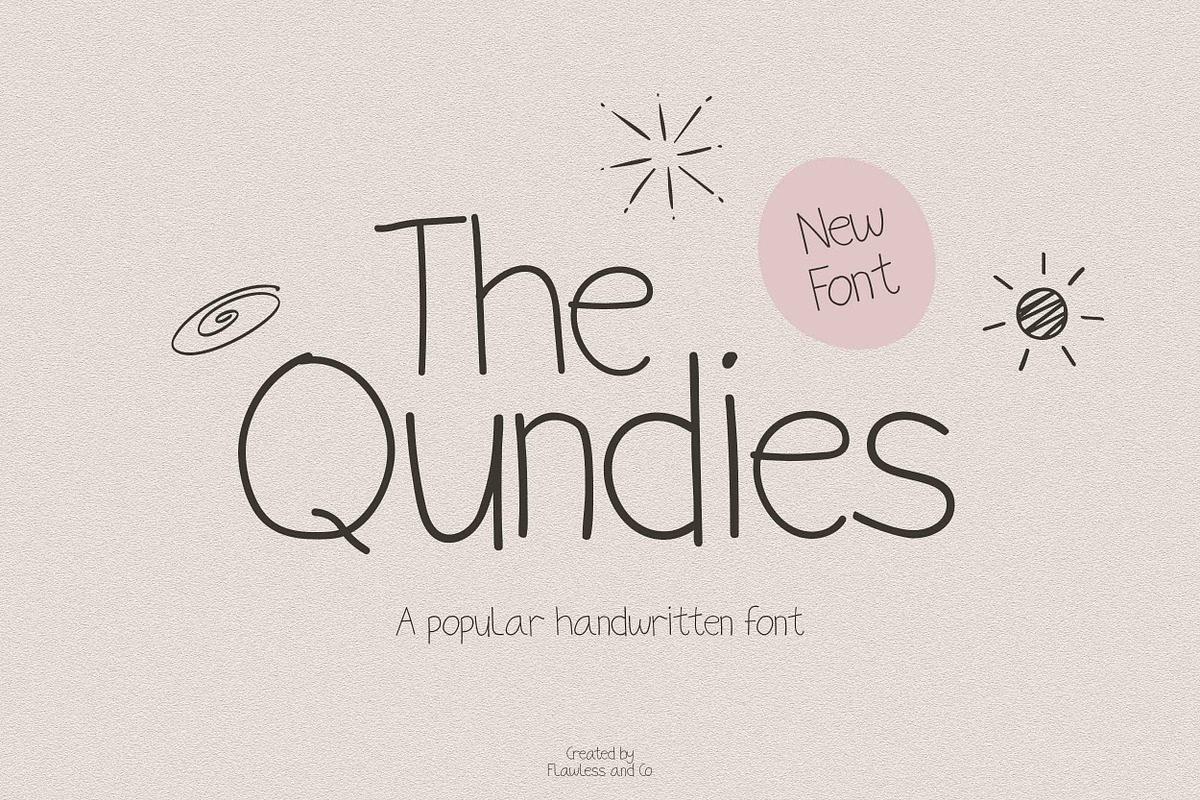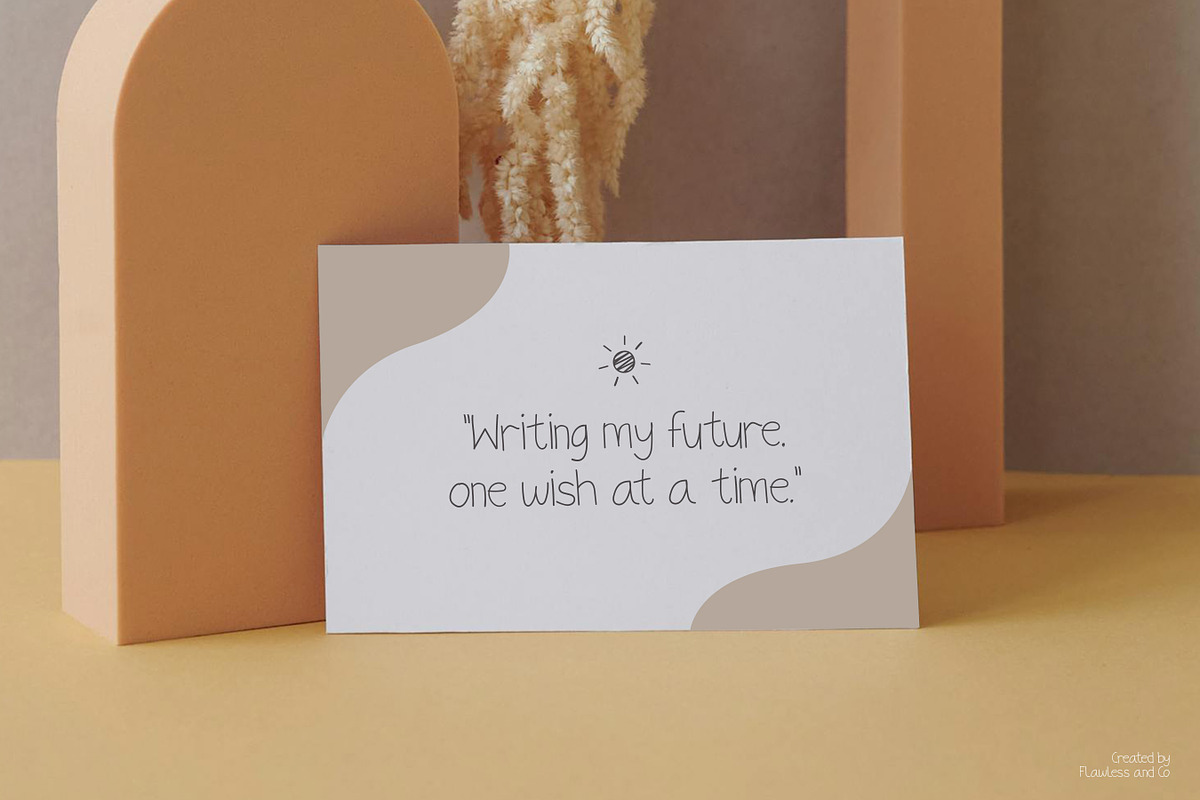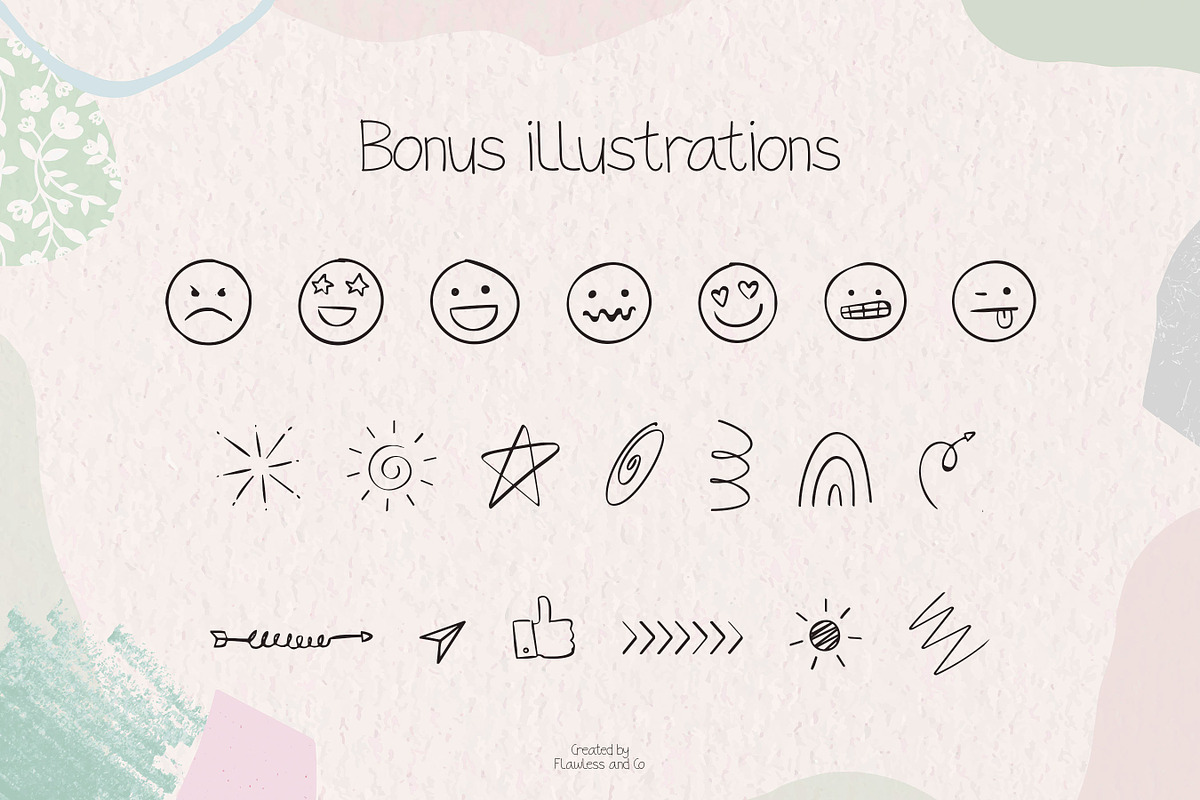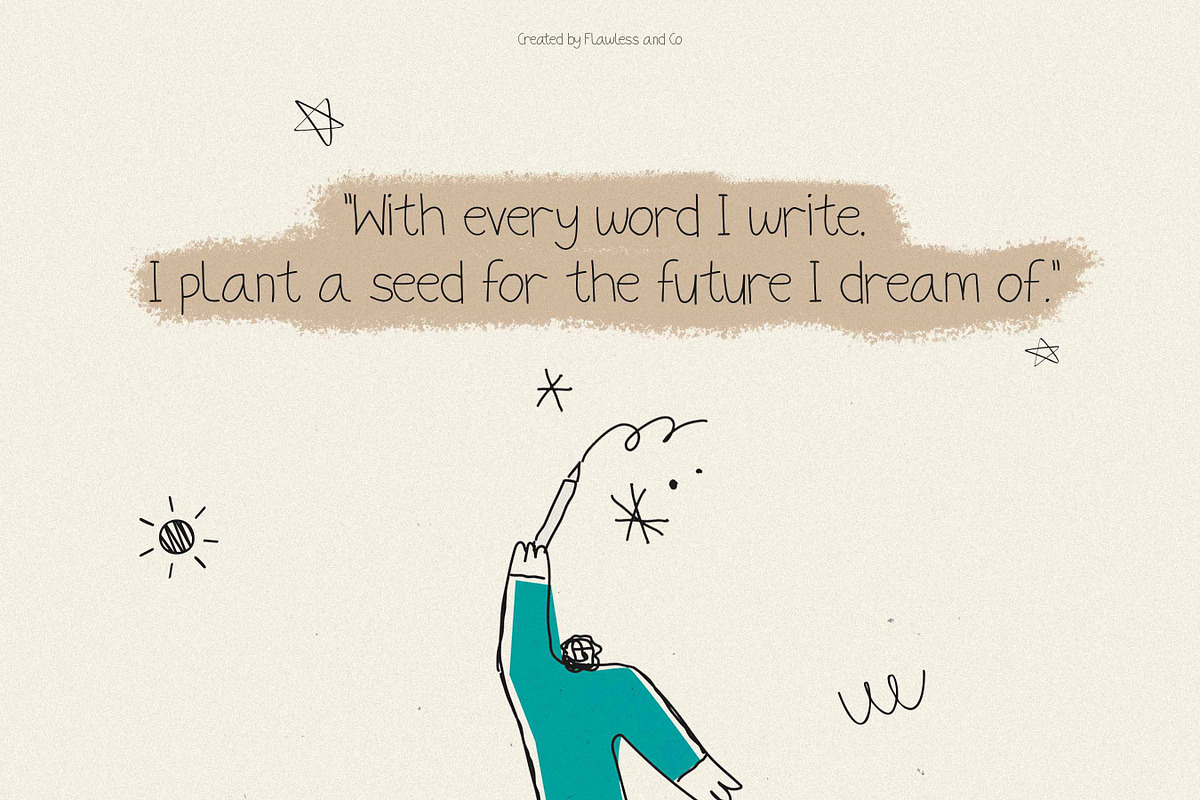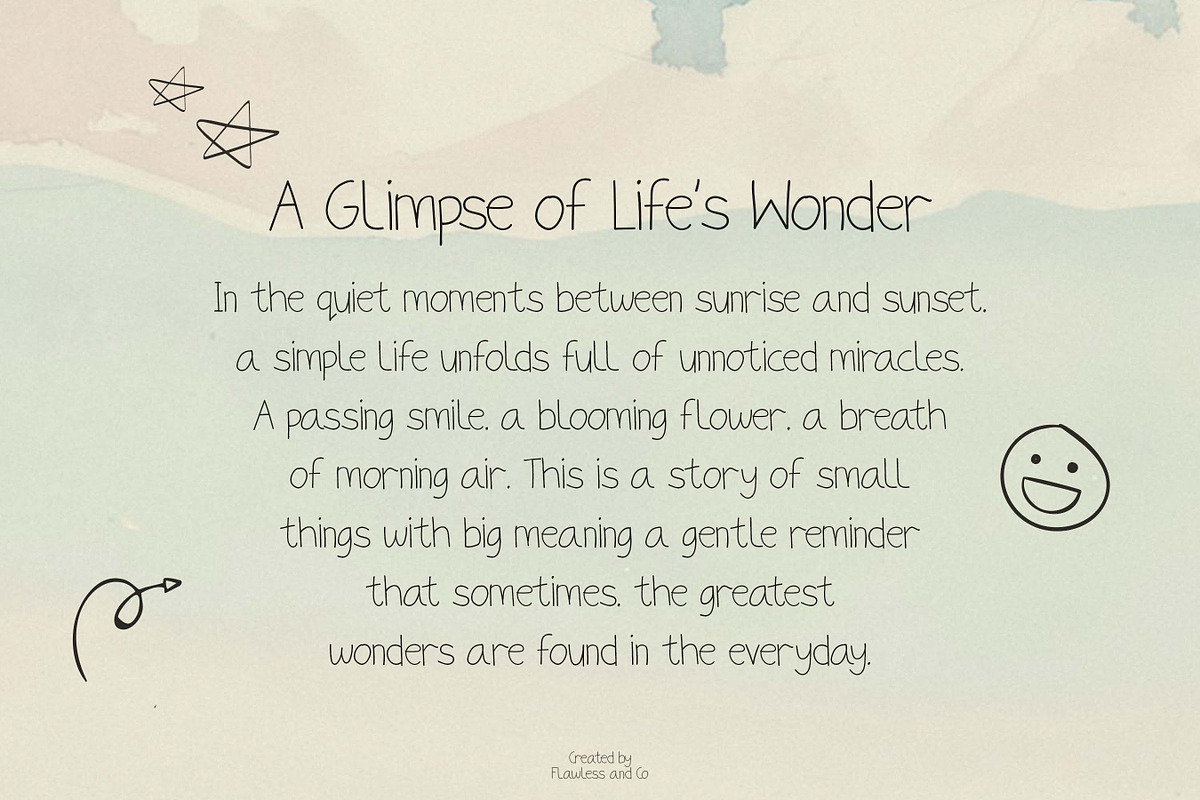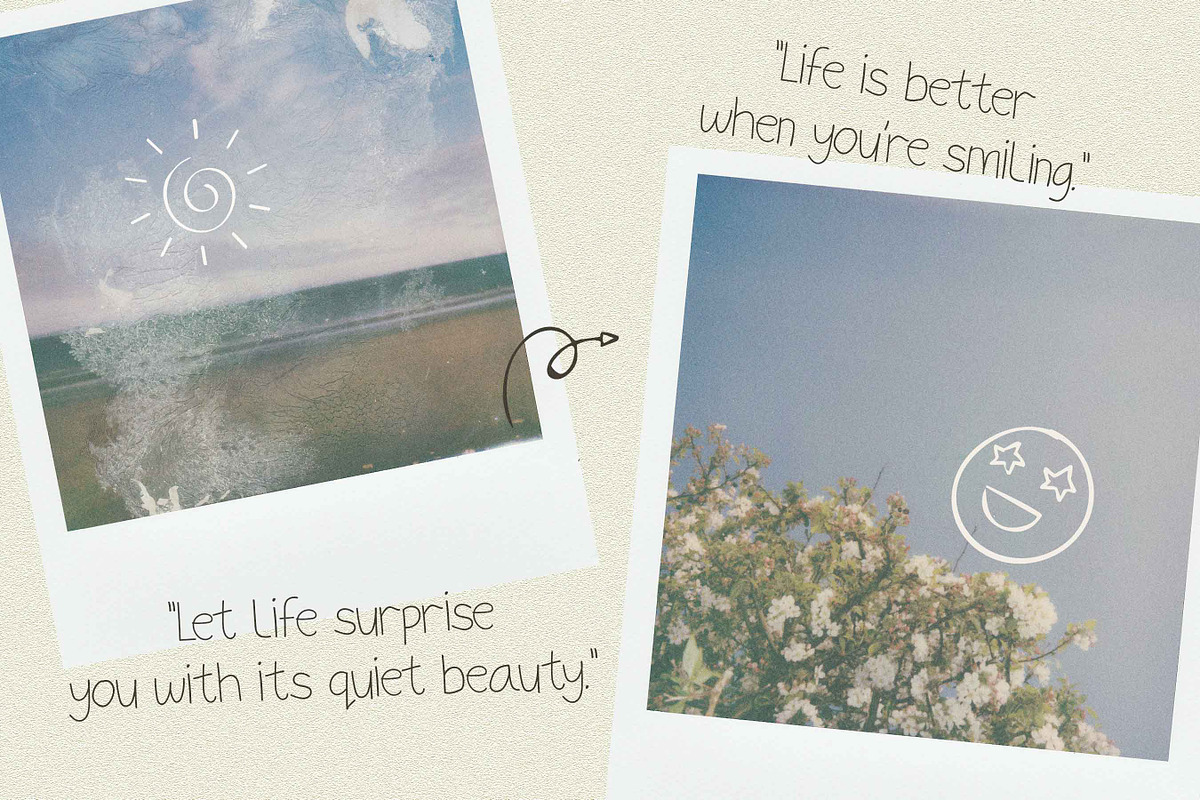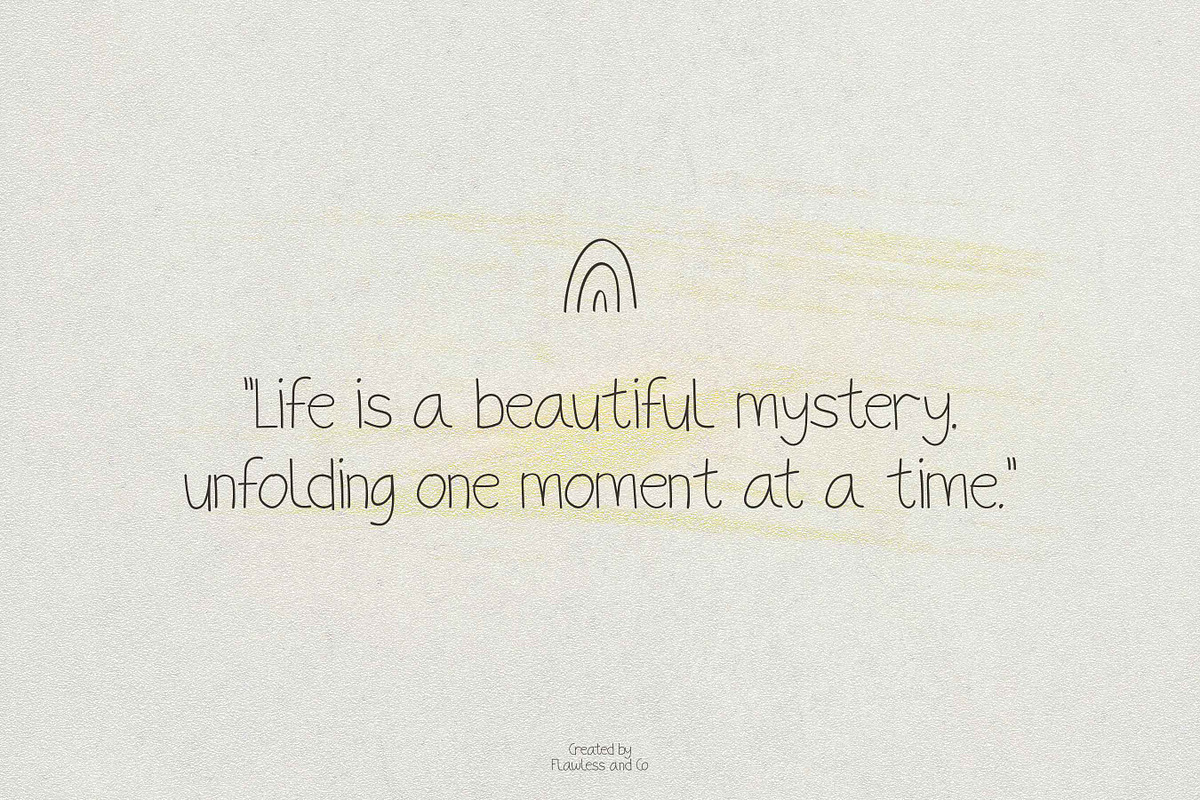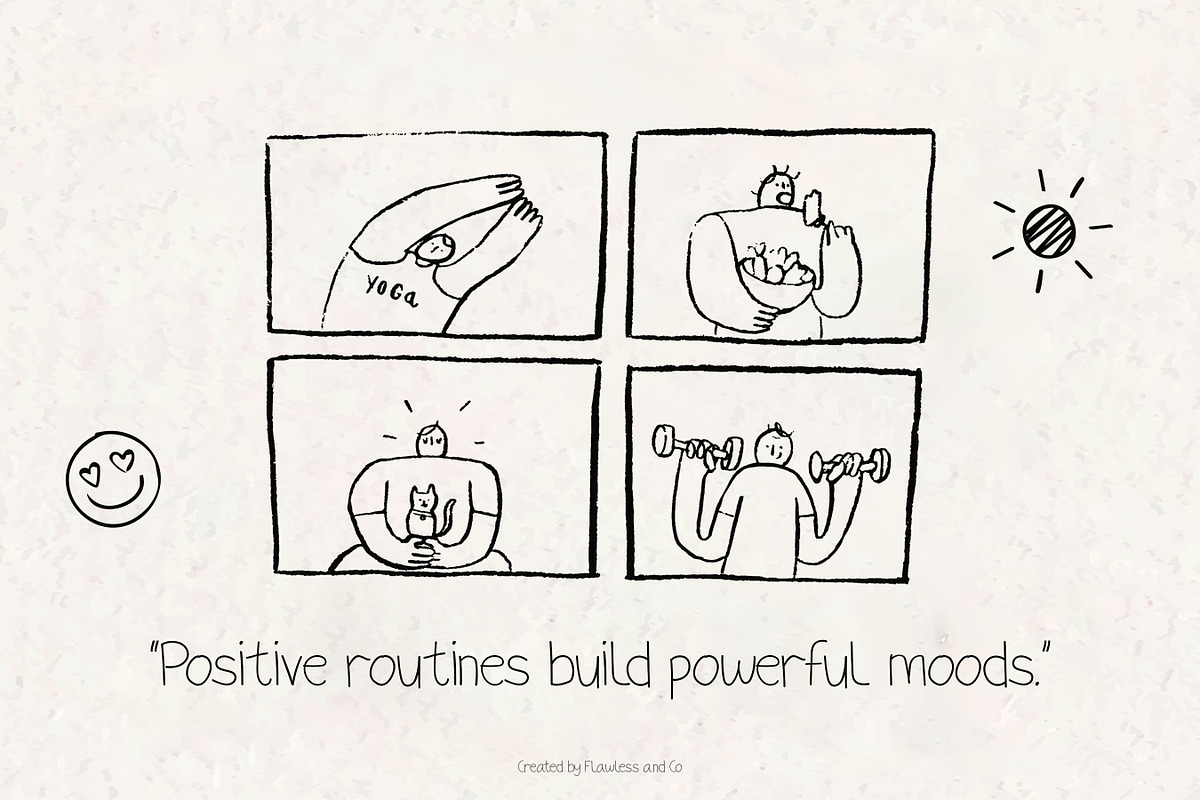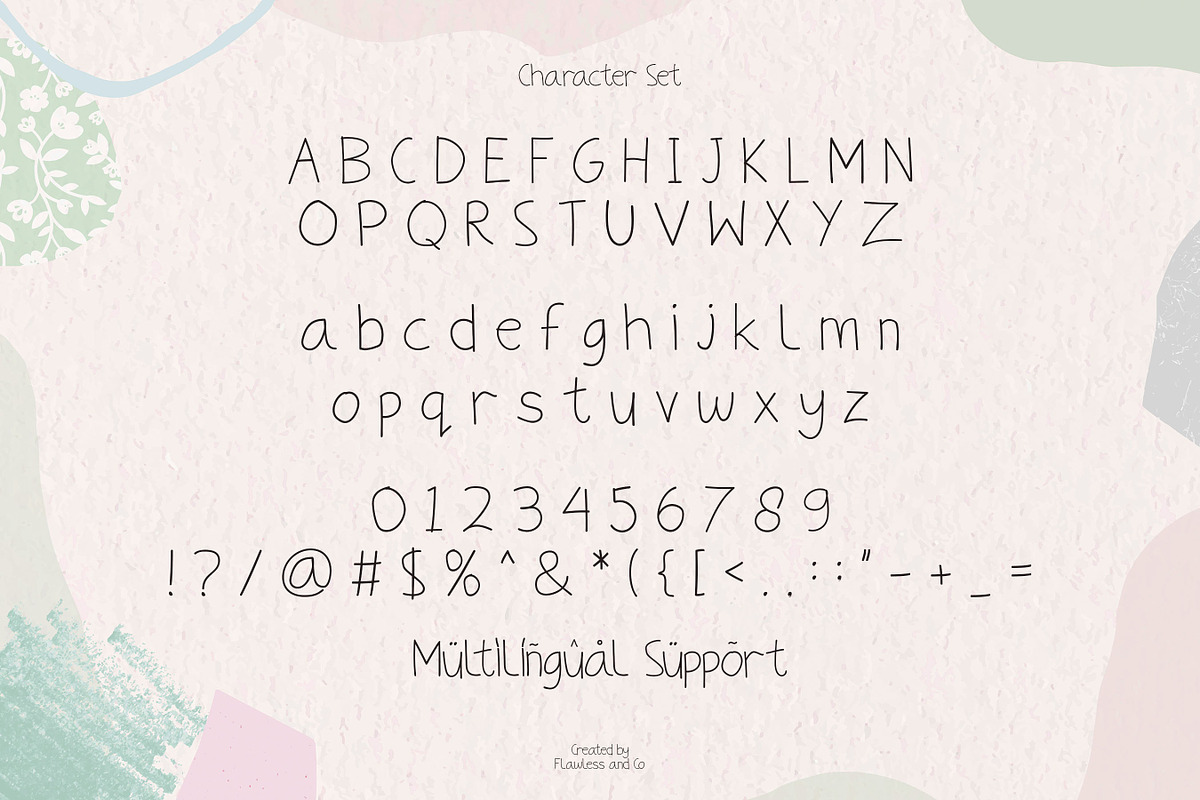
The Qundies – Handwritten Font
THE QUNDIES – A Popular Handwritten Font
THE QUNDIES a handwritten font that brings out the perfect blend of casual charm and effortless style. Carefully crafted to look as natural as real handwriting, this font adds a personal touch to your creative projects. Whether you're working on branding, logo design, Instagram quotes, packaging, wedding stationery, or just adding a handwritten feel to your design — THE QUNDIES is ready to make your work stand out.
- Multilingual Support Make your design feel more human, more personal, and more you with THE QUNDIES.
Who Should Use THE QUNDIES?
THE QUNDIES is perfect for designers, creatives, and entrepreneurs looking to add a personal, handwritten touch to their work. This font is ideal for:
- Brand Designers – Create warm, authentic logos and brand identities.
- Wedding Planners & Stationers – Add elegance and romance to invitations, place cards, and signage.
- Social Media Creators – Enhance quotes, captions, and graphics with a natural, friendly vibe.
- Product Packaging Designers – Make labels and packaging feel more personal and artisanal
- Bloggers & Content Creators – Add character to your website graphics and featured images.
- Small Business Owners – Use it across branding materials like business cards, flyers, or thank-you notes.
- DIY & Craft Enthusiasts – Perfect for Cricut/Silhouette projects, journaling, and handmade goods.
Whether you're building a brand or beautifying a simple message, THE QUNDIES brings a touch of humanity to every letter.
A Must-Have Font for Brand Creators and Designers
THE QUNDIES is a handwritten font with effortless charm. Designed for creatives who want a natural, personal touch, it’s perfect for logos, packaging, social media, and more. With its casual elegance, THE QUNDIES adds authenticity to any design.
Why Choose THE QUNDIES for Brand Projects?
Because your brand deserves a font that feels real, personal, and creatively expressive. THE QUNDIES isn’t just a handwritten font — it’s your secret to building an authentic visual voice. With its natural flow, casual elegance, and handcrafted charm, it adds warmth and personality to any brand. Whether you're crafting logos, packaging, social content, or stationery, THE QUNDIES helps your brand:
- Feel more human and relatable
- Stand out with a natural, handwritten edge
- Add emotional depth with an authentic voice
- Bring consistency through alternates and ligatures For designers who value character, simplicity, and heartfelt storytelling — THE QUNDIES is the handwritten touch your brand needs.
Suitable For:
- Logo & Branding Design
- Social Media Graphics
- Wedding Invitations & Stationery
- Product Packaging & Labels
- Instagram Quotes & Content
- Personal Projects & DIY Crafts
- Blog Headers & Website Banners
- Greeting Cards & Journals